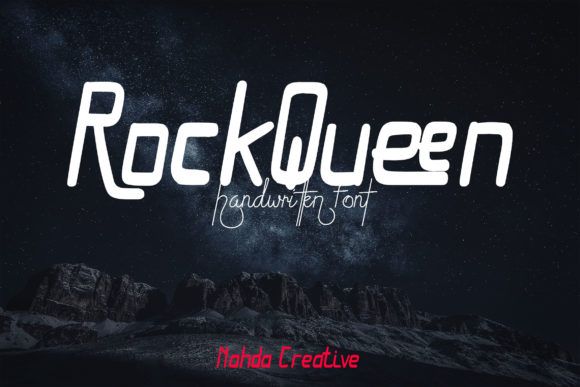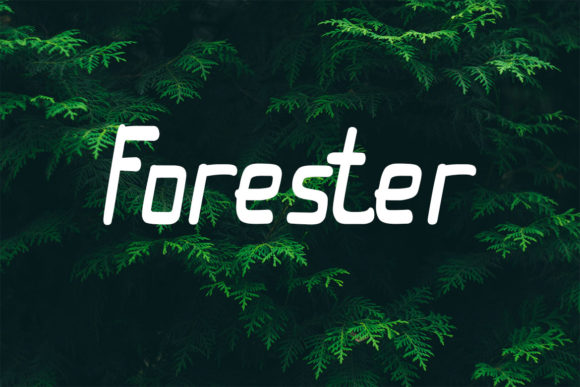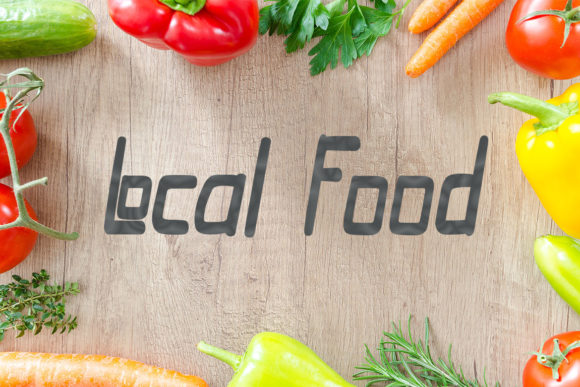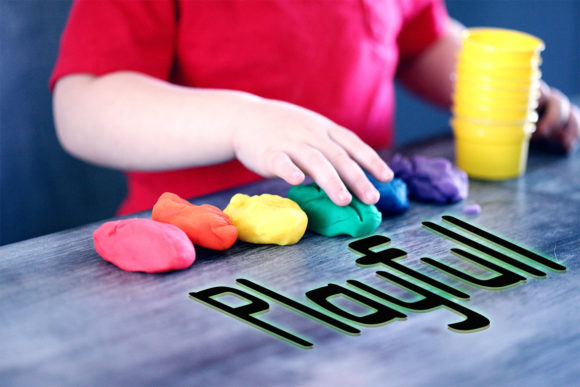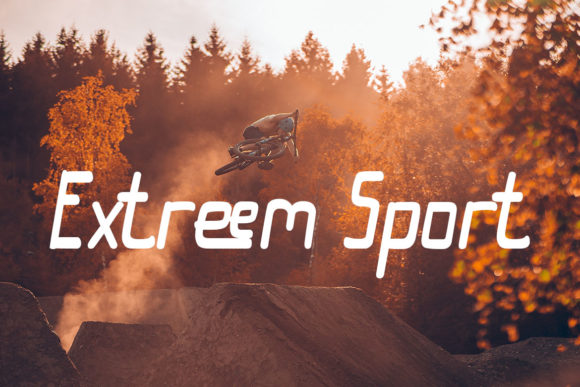
RockQueen Font
About RockQueen Font
Rockqueen is a carefully crafted handwritten font with a thick touch. It displays an extraordinary style while maintaining a friendly atmosphere. This font is the perfect font for creating original and extraordinary designs.